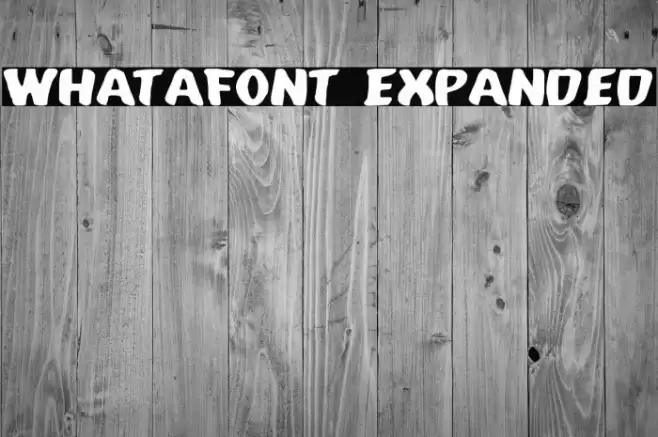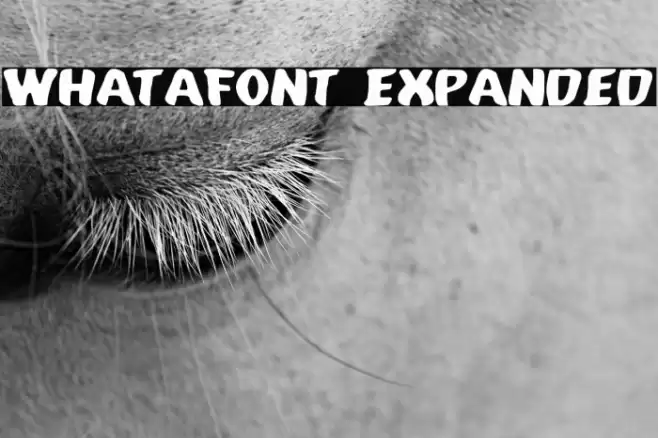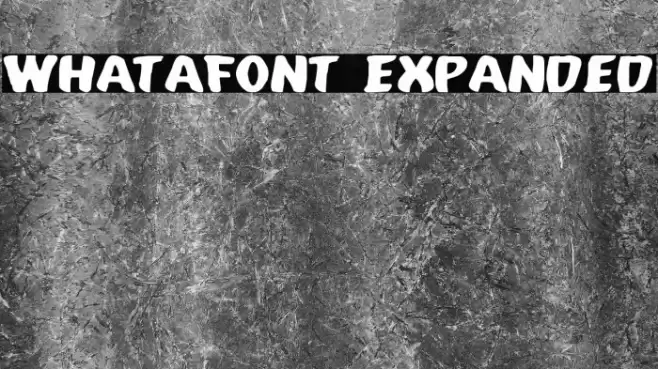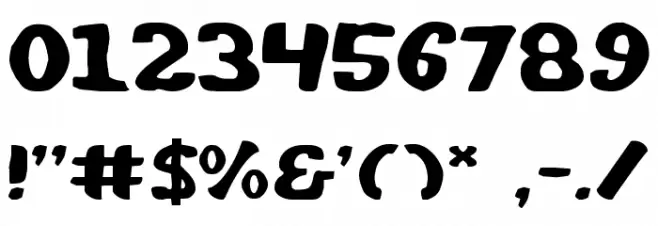
Whatafont Expanded Font
Whatafont Expanded Description
This font features a bold and playful design with a hand-drawn aesthetic. The characters are thick and rounded, giving it a friendly and approachable feel. The uppercase and lowercase letters maintain a consistent style, with exaggerated curves and a slightly irregular baseline that adds to its charm. The numbers and special characters follow the same design principles, ensuring uniformity across the font. Its unique style makes it stand out, making it suitable for creative and informal projects.
A bold, playful font with a hand-drawn, rounded style from Uncategorized fonts.
- Proposed Projects: Ideal for children's books, playful branding, posters, and social media graphics.
- Overall Style: Playful, Hand-drawn